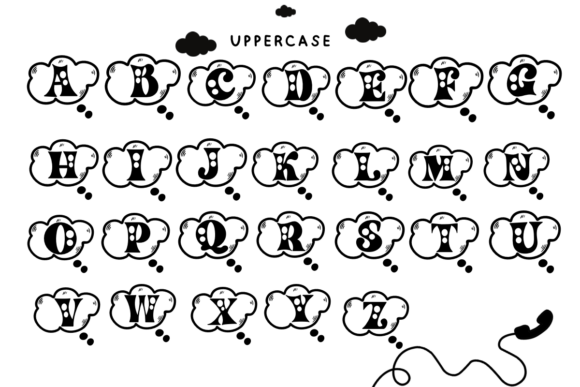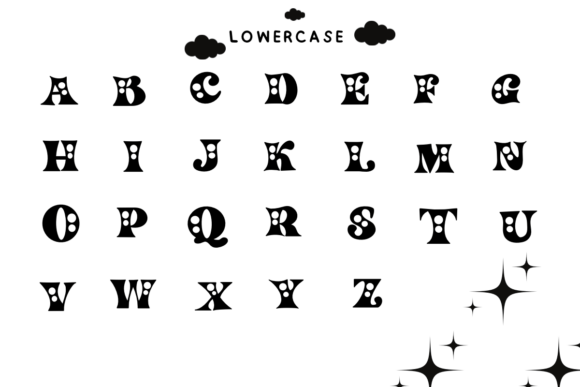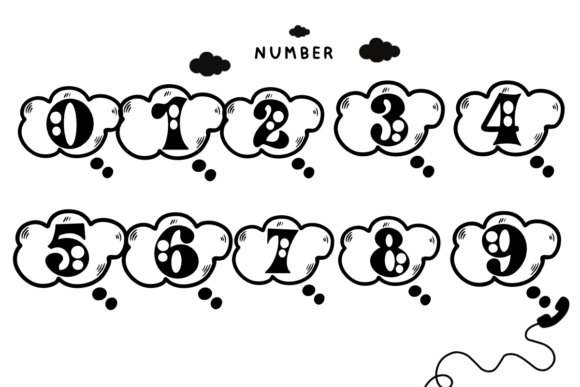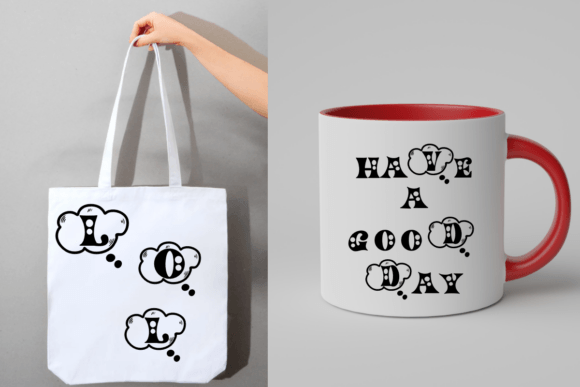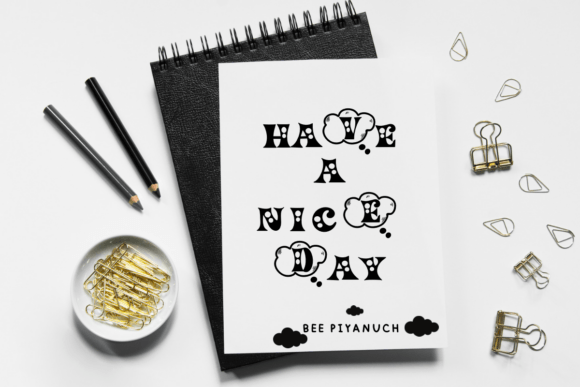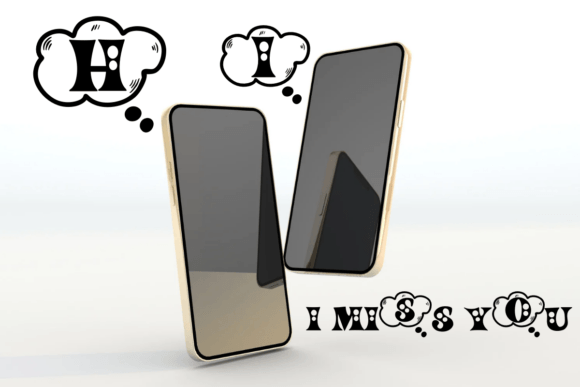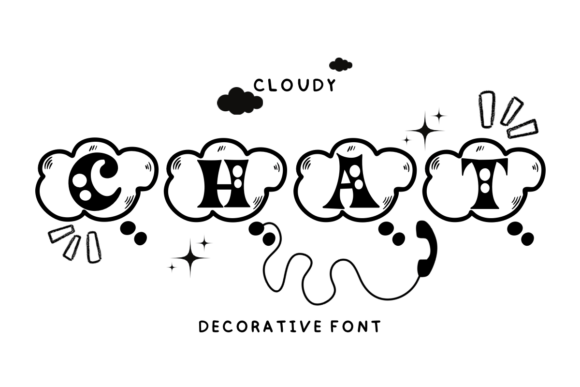
Introducing Cloudy Chat Font: Elevate Your Designs with a Friendly and Approachable Touch
In the world of design, typography plays a crucial role in conveying the tone and atmosphere of a project. When it comes to communication and conversation themes, the right font can make all the difference. This is where Cloudy Chat Font comes in – a unique and charming typeface designed to bring a sense of lightness and connection to your designs.
The Concept Behind Cloudy Chat Font
Cloudy Chat Font is a thoughtfully crafted typeface where each character is carefully designed within a cloud shape. This distinctive approach not only sets it apart from traditional fonts but also instantly conveys a sense of friendliness and approachability. The cloud shape design element evokes feelings of warmth and relaxation, making it perfect for projects that aim to create a welcoming atmosphere.
Ideal for Communication and Connection Themes
Whether you’re working on chat platforms, social media projects, or any initiative focused on communication and connection, Cloudy Chat Font is the ideal choice. Its unique design fosters a warm and approachable feel, encouraging engagement and conversation. This font is not just about aesthetics; it’s about creating an emotional connection with your audience.
One of the standout features of Cloudy Chat Font is its versatility. It’s not limited to digital platforms; it can be used across various mediums, including banners, postcards, clothing, and bags. The font’s charm and accessibility make it an excellent choice for designers and crafters looking to add a personal touch to their projects.
Unleash Your Creativity
Cloudy Chat Font is more than just a typeface; it’s a creative tool that allows you to bring your ideas to life without limits. Its friendly and relaxed vibe can transform any design, making it more engaging and inviting. Whether you’re a professional designer or a DIY enthusiast, this font offers the perfect blend of style and approachability.
Why Choose Cloudy Chat Font?
- Unique Design: Each character is designed within a cloud shape, providing a distinctive look that captures attention.
- Conveys Lightness and Connection: The cloud design element evokes feelings of warmth, friendliness, and approachability.
- Ideal for Communication Themes: Perfect for chat platforms, social media, and projects focused on connection and communication.
- Versatile: Suitable for a wide range of design projects, from digital to print and merchandise.
- Easy to Read: Despite its unique design, Cloudy Chat Font remains clear and readable, making it functional as well as beautiful.
Tips for Using Cloudy Chat Font
To get the most out of Cloudy Chat Font, consider the following tips:
- Mix and Match: Combine Cloudy Chat Font with other fonts for contrast and visual interest.
- Play with Colors: The font’s friendly vibe works well with bright and pastel colors.
- Experiment with Sizes: Cloudy Chat Font looks great in both large and small sizes, making it versatile for various applications.
Cloudy Chat Font is a game-changer for designers and crafters looking to infuse their projects with a friendly and approachable touch. Its unique cloud-shaped characters, combined with its versatility and readability, make it an excellent choice for a wide range of design applications. Whether you’re aiming to create a chat platform, social media content, or simply want to add a personal touch to your designs, Cloudy Chat Font is sure to bring your ideas to life in a warm and engaging way.